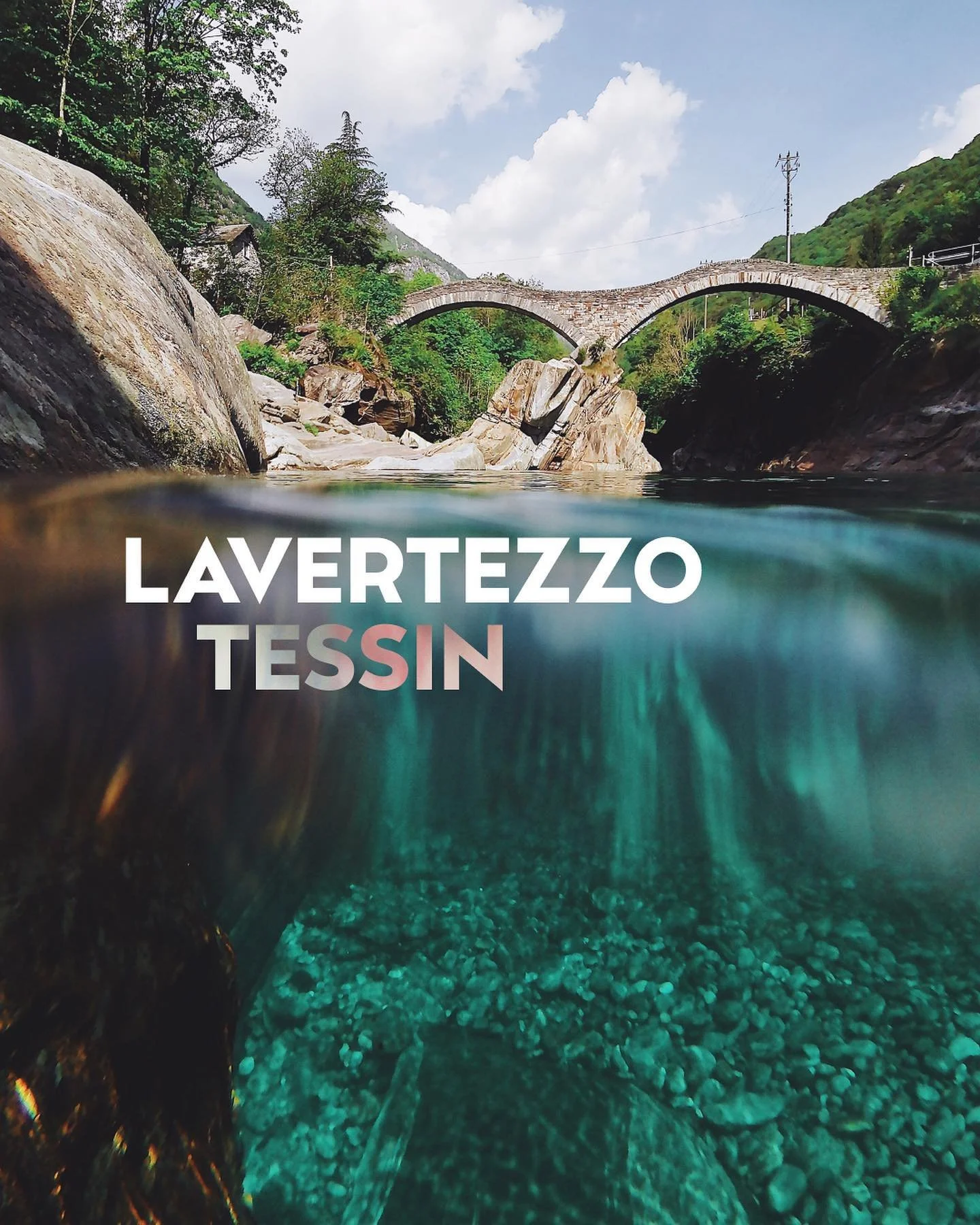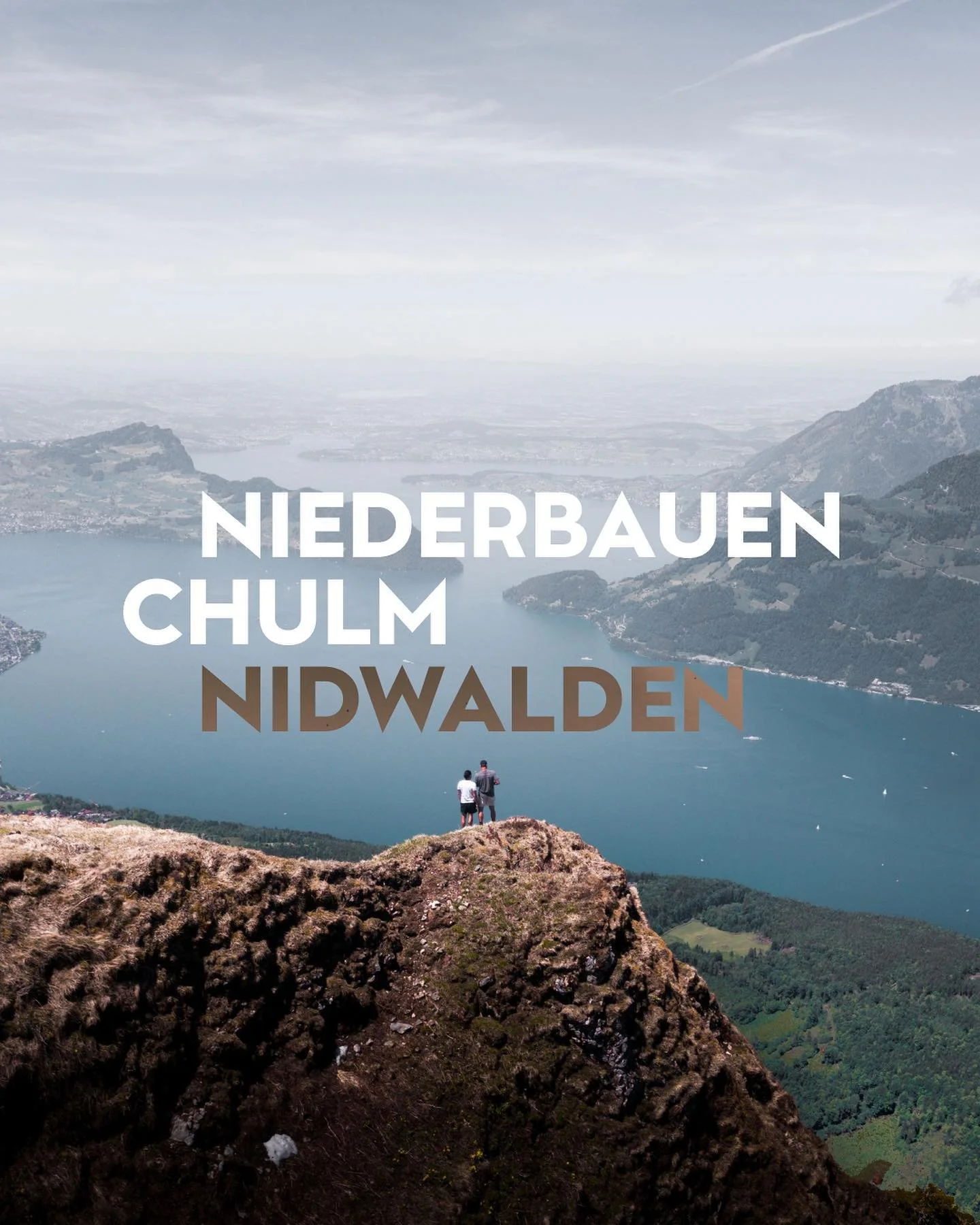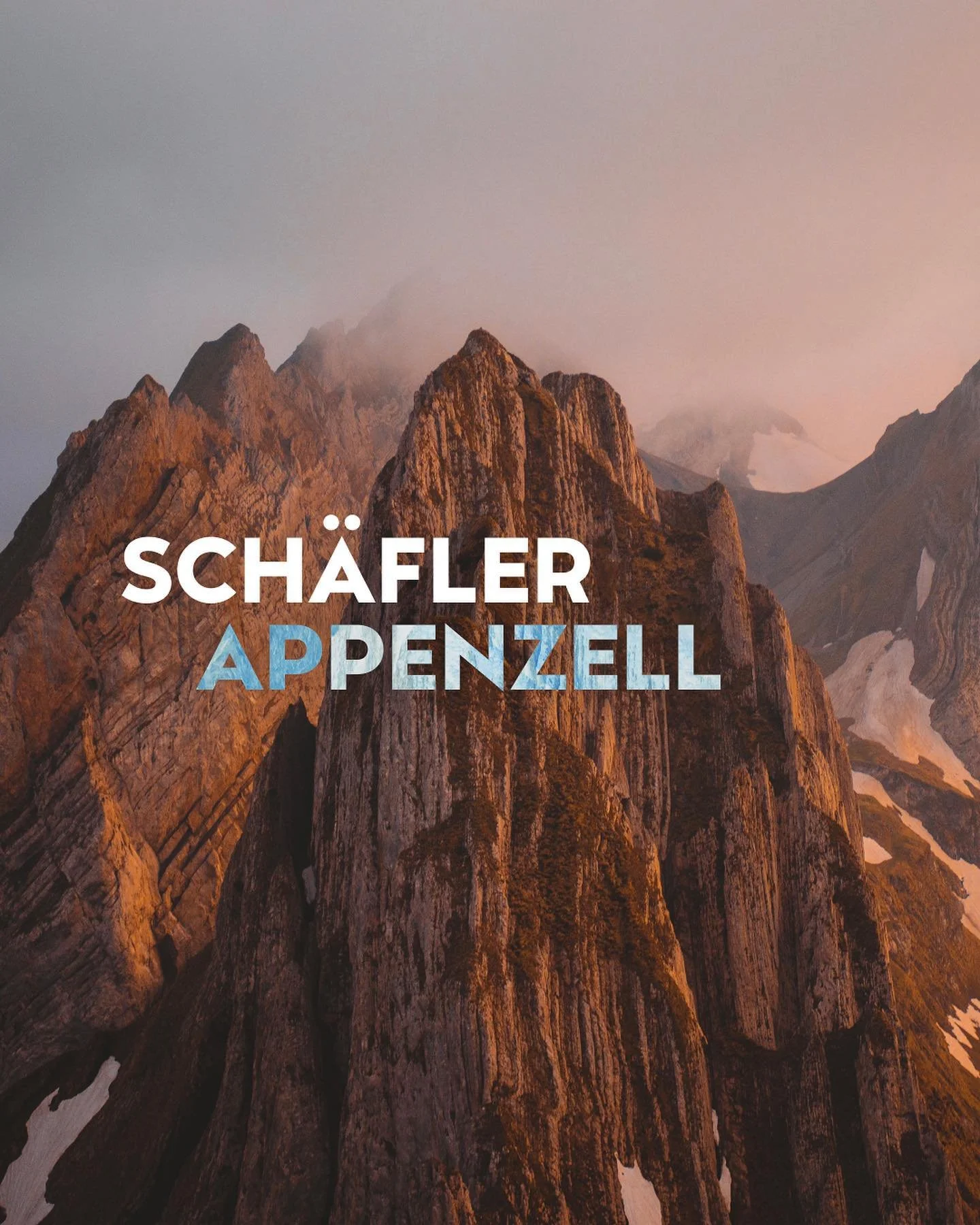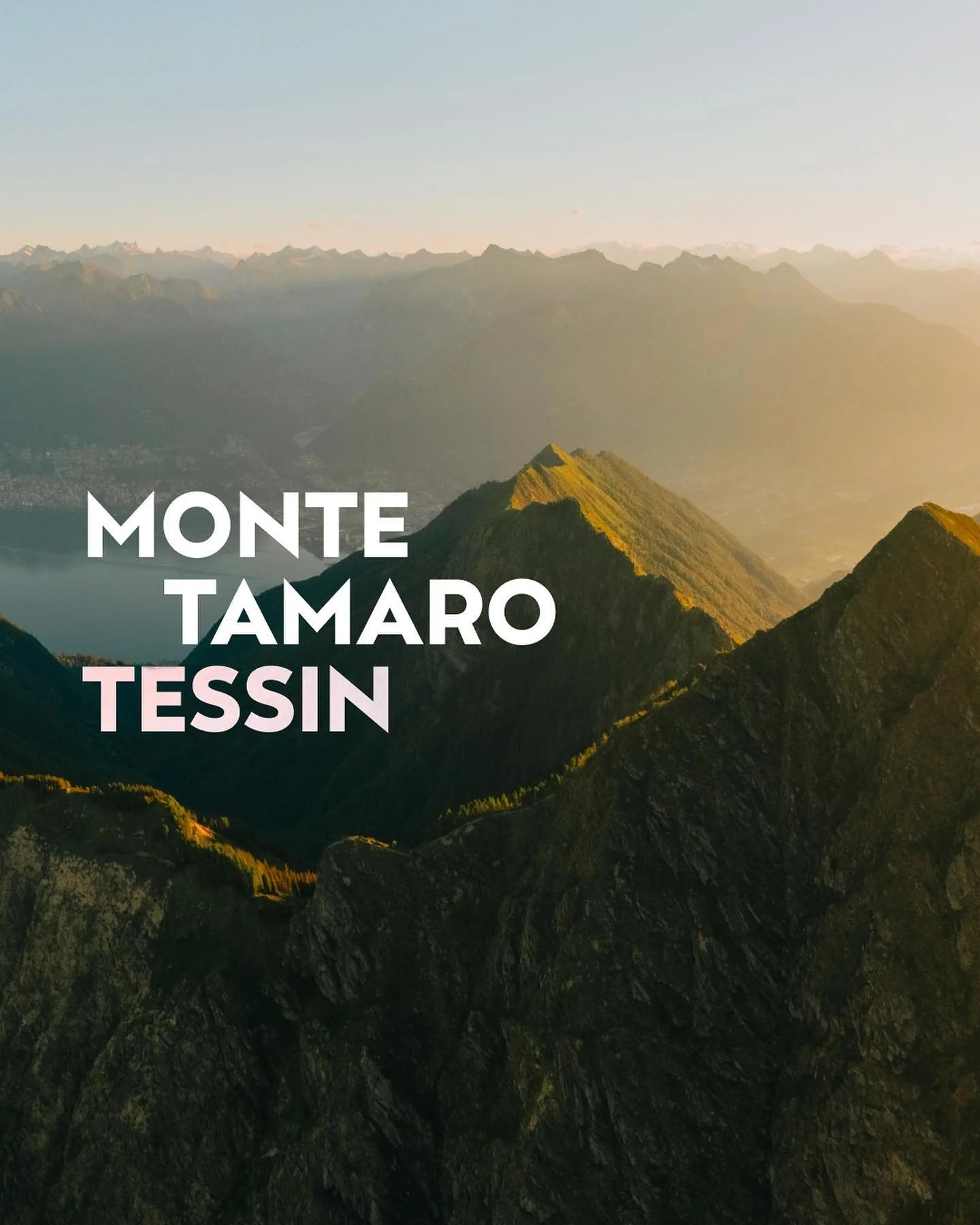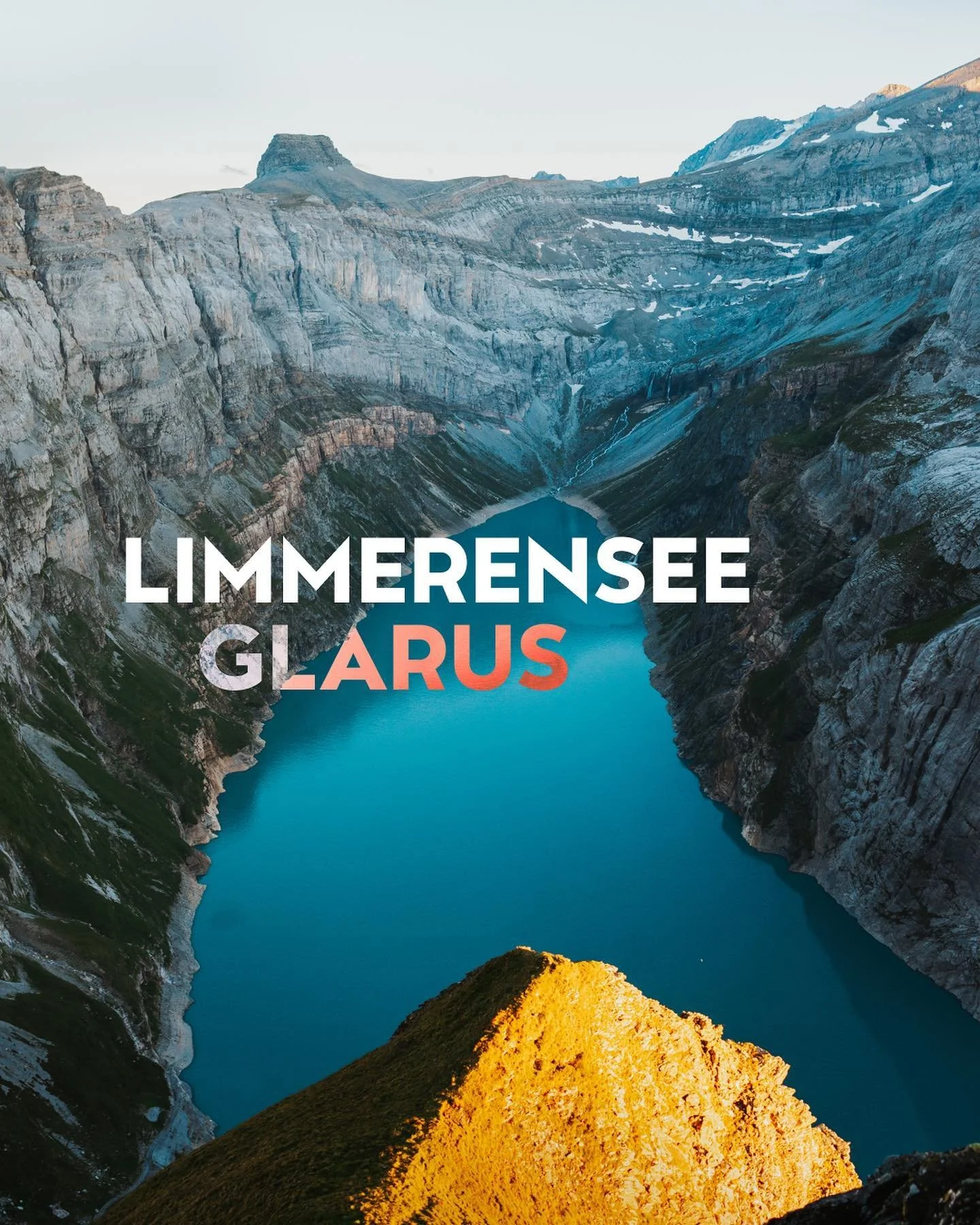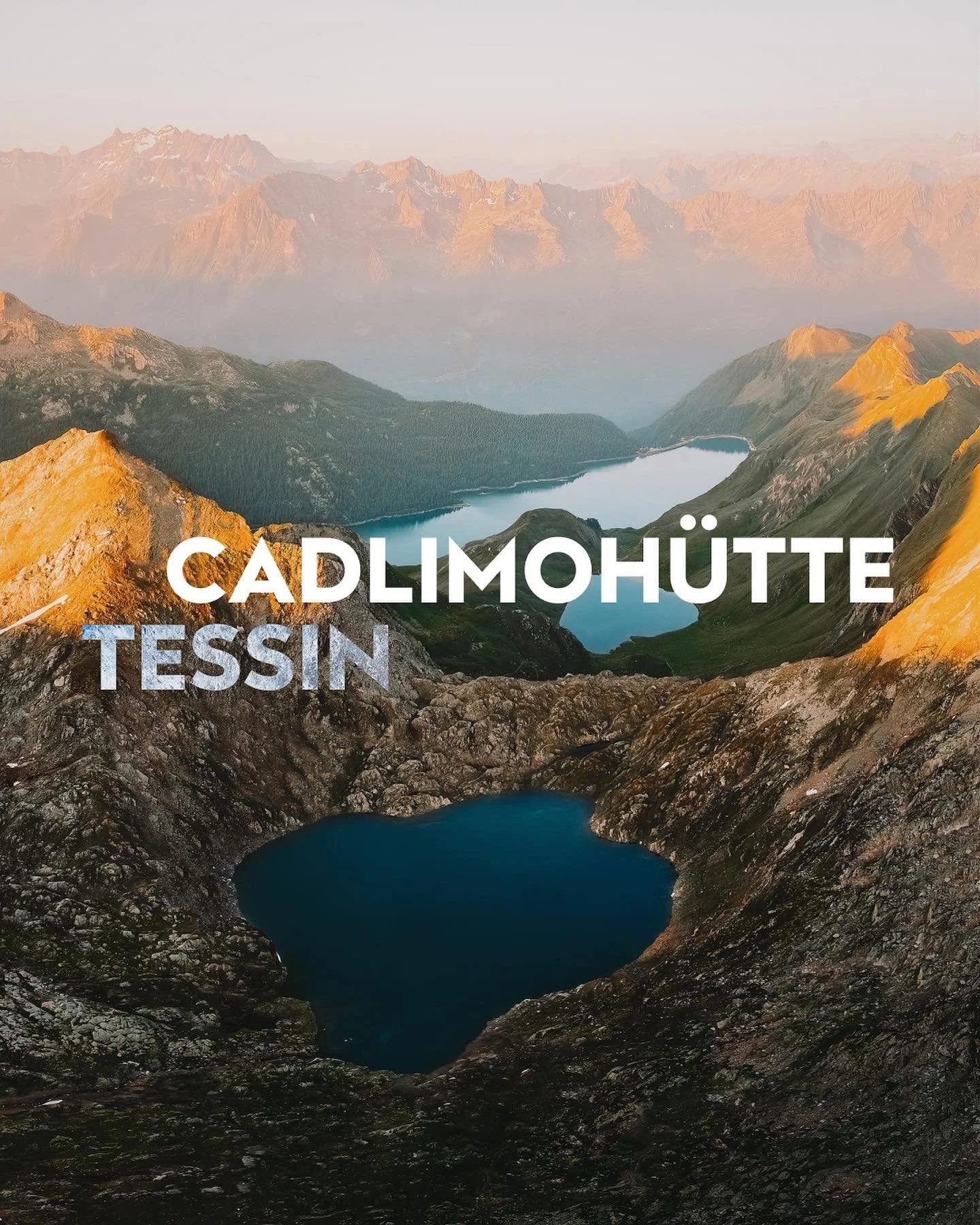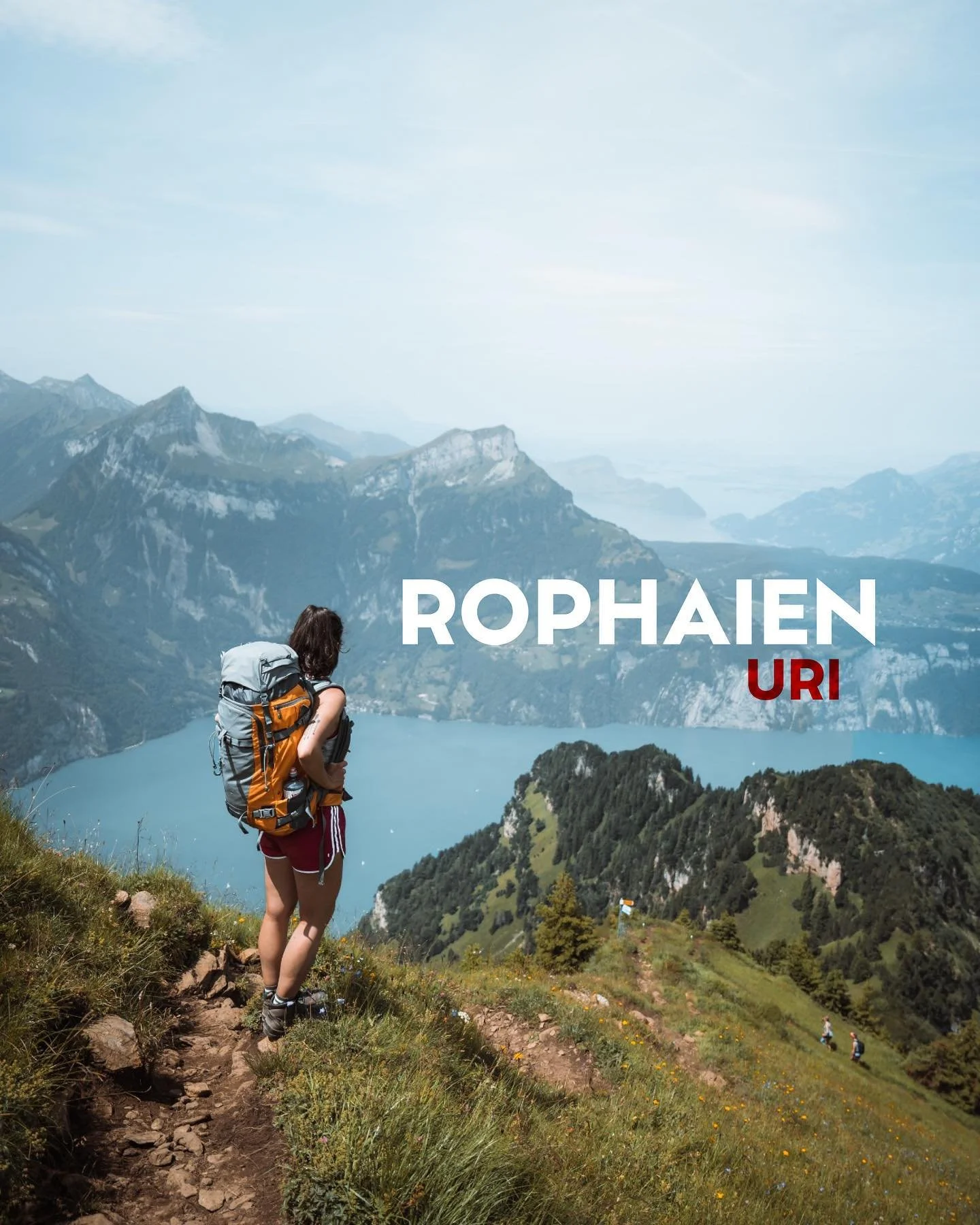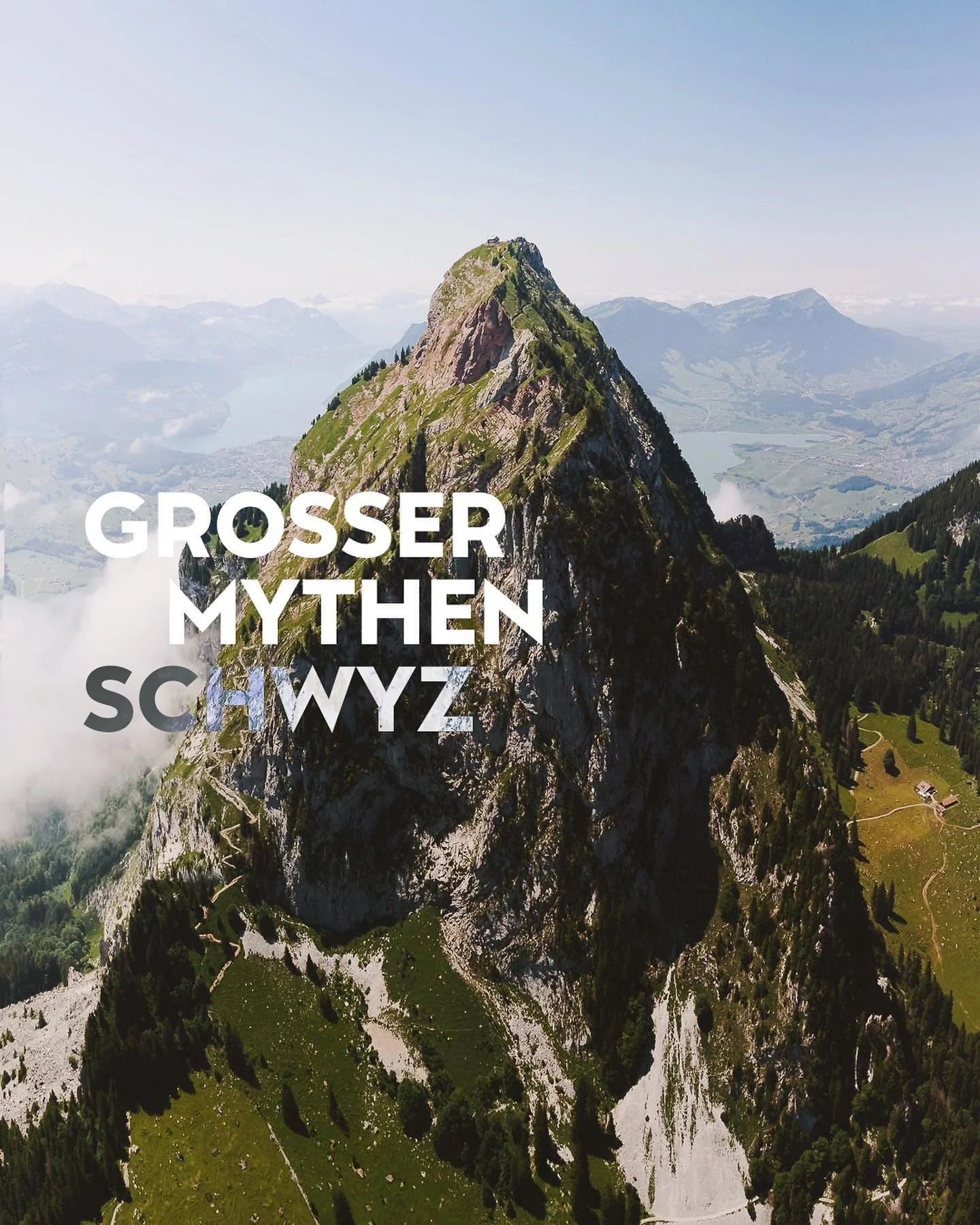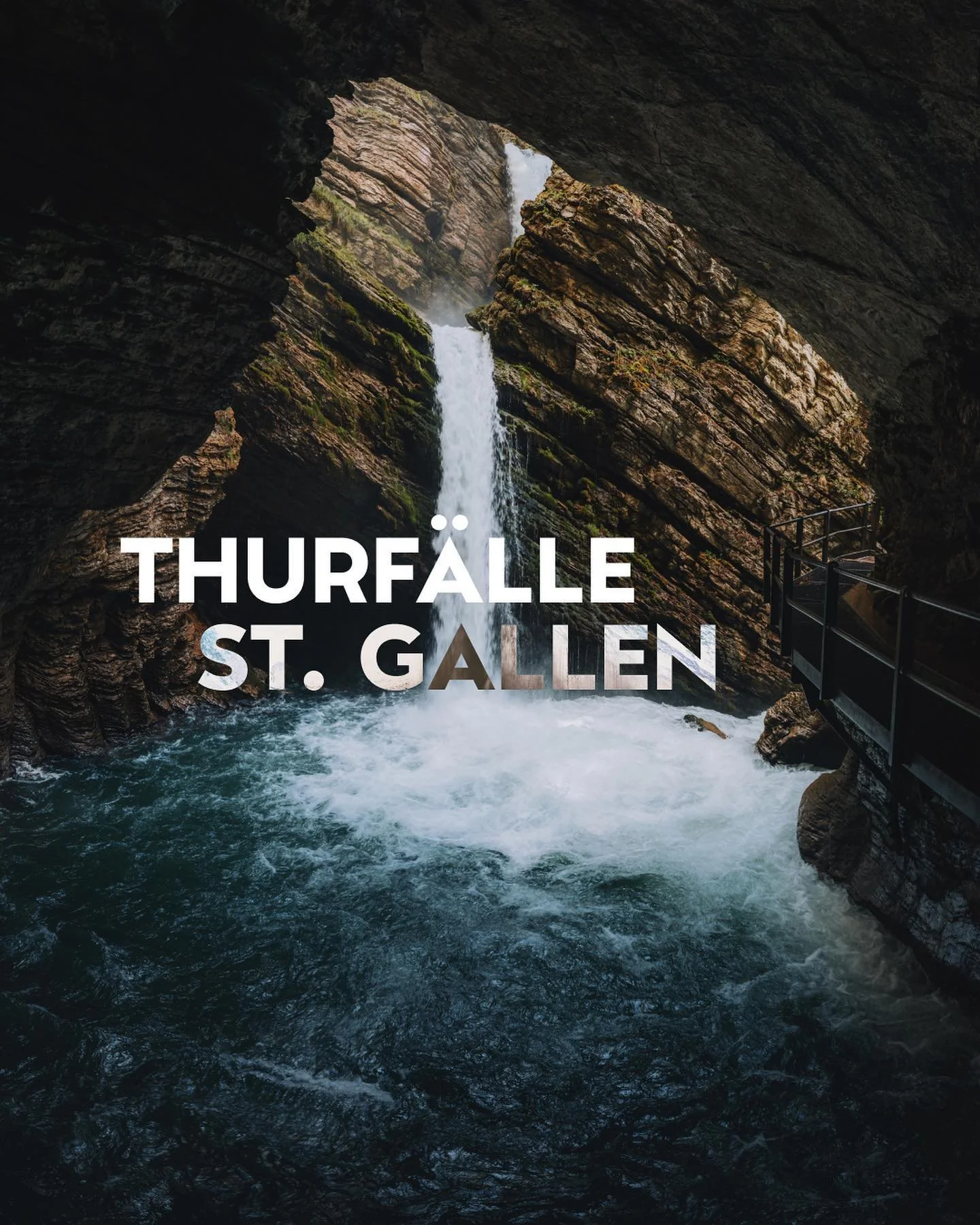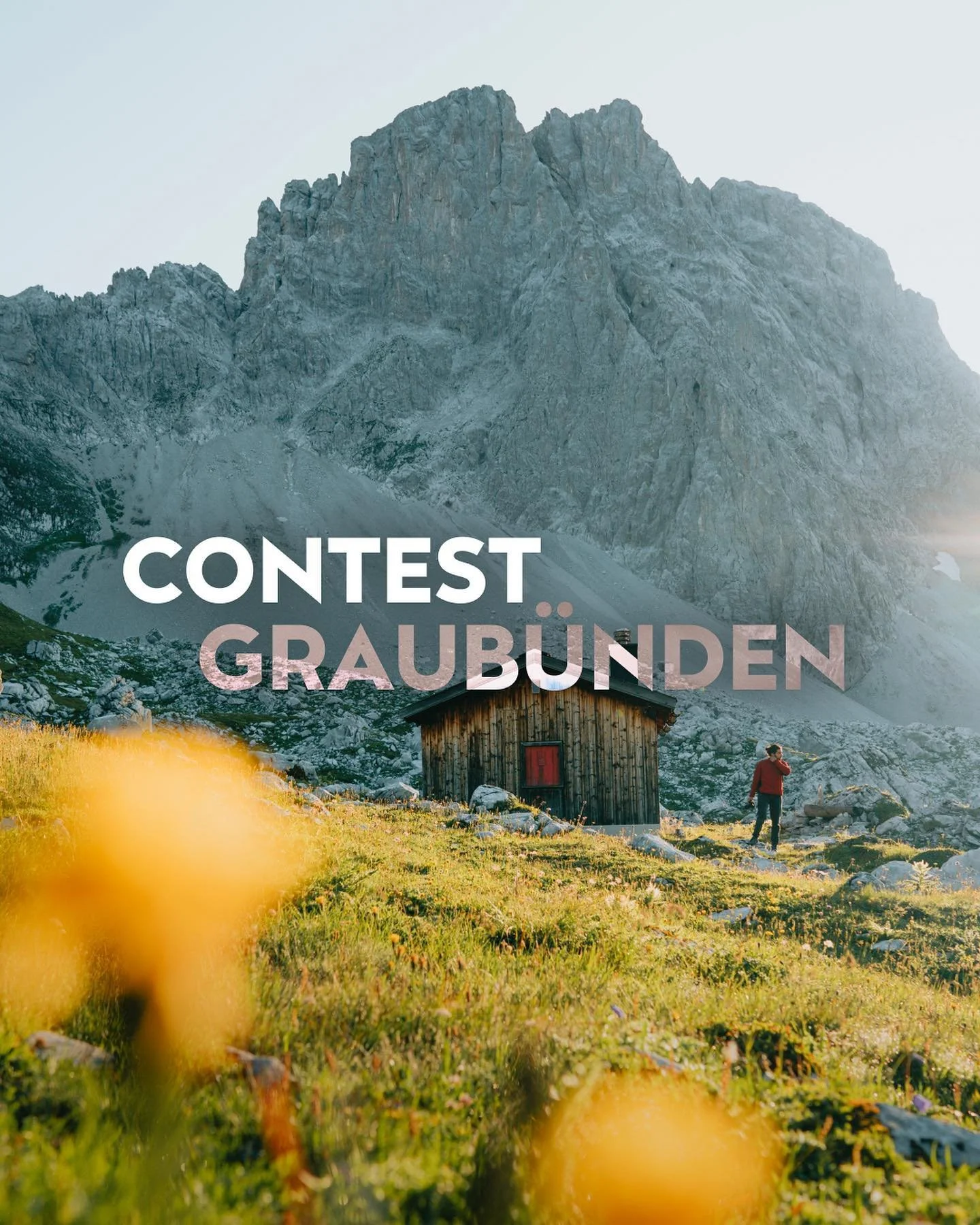
instaswiss highlights the stunning landscapes and culture of Switzerland, recommending hikes and trips to carefully selected locations. We are very pleased with the choice of the typeface and find it the perfect fit. Not only the name of the Albula Pro, but also the roots of the design have been inspired by and originated in this regions.